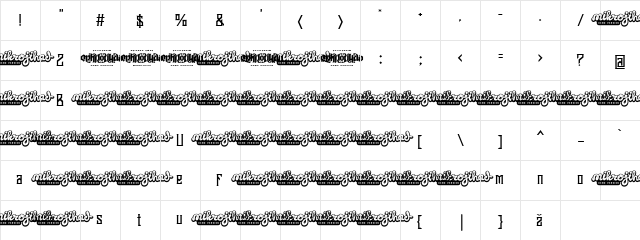
Banten Unfamous 2 DEMO Regular
| Foundry | Mikrojihad |
| Designer | Mikrojihad |
Design Context for Banten Unfamous 2 DEMO Typeface
Banten Unfamous 2 DEMO offers clean, dependable letterforms without strong stylistic allegiance, making it a practical choice for designers who need flexibility.